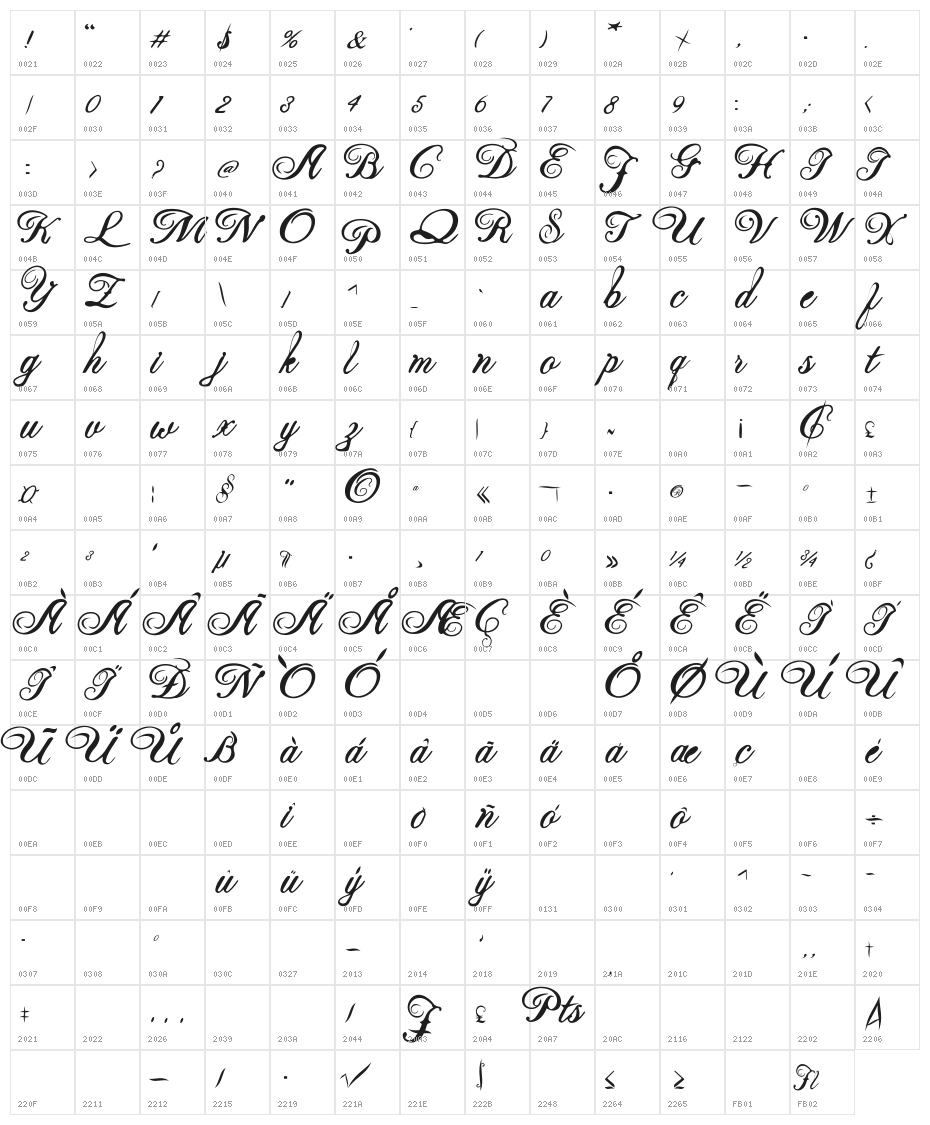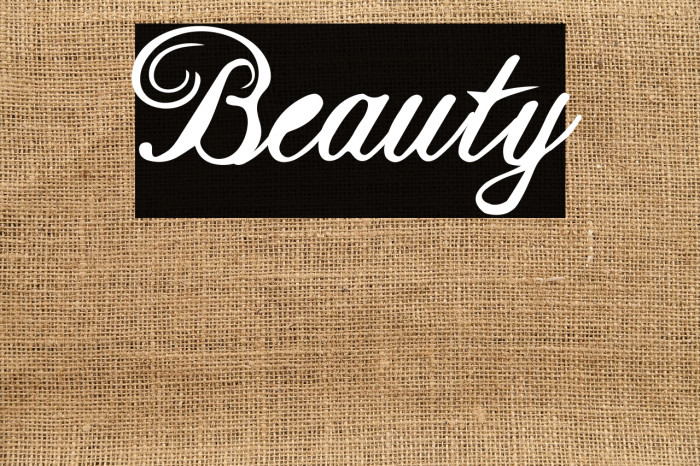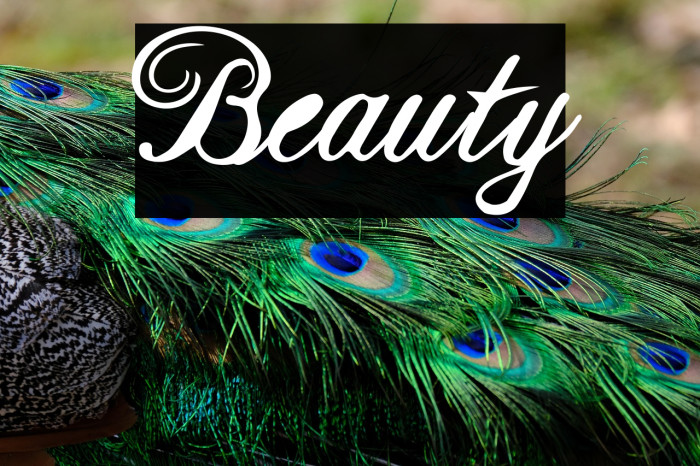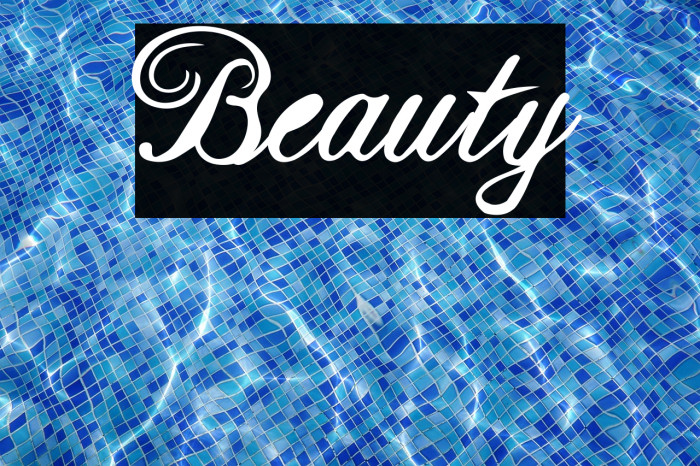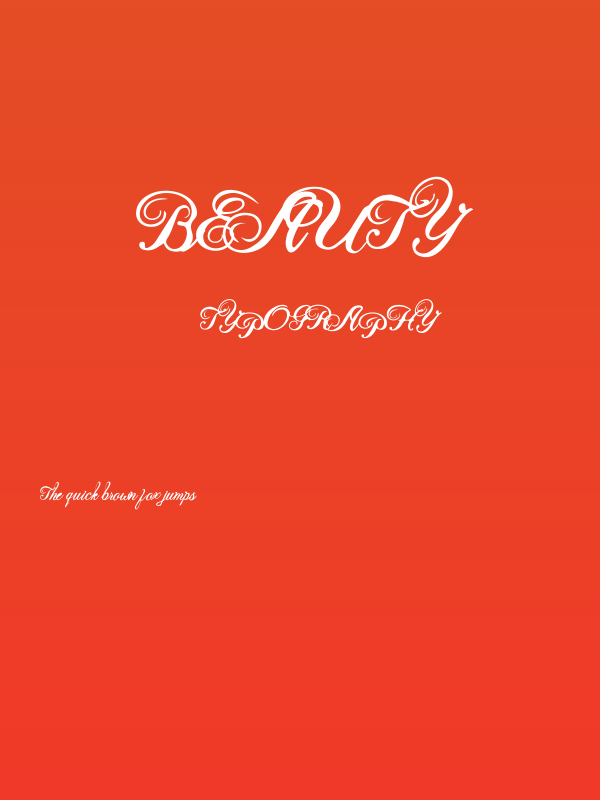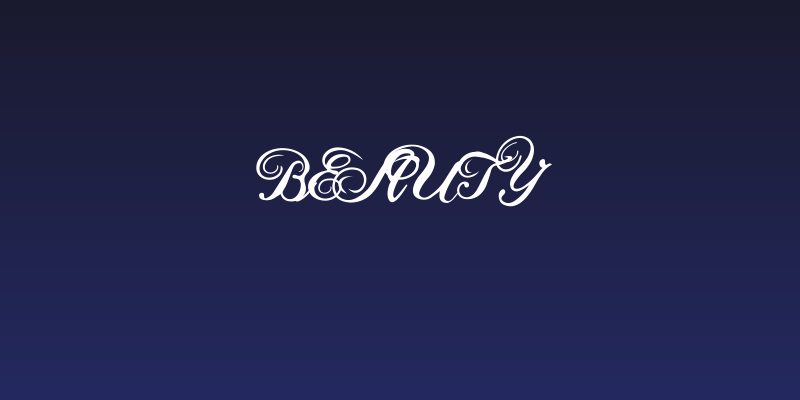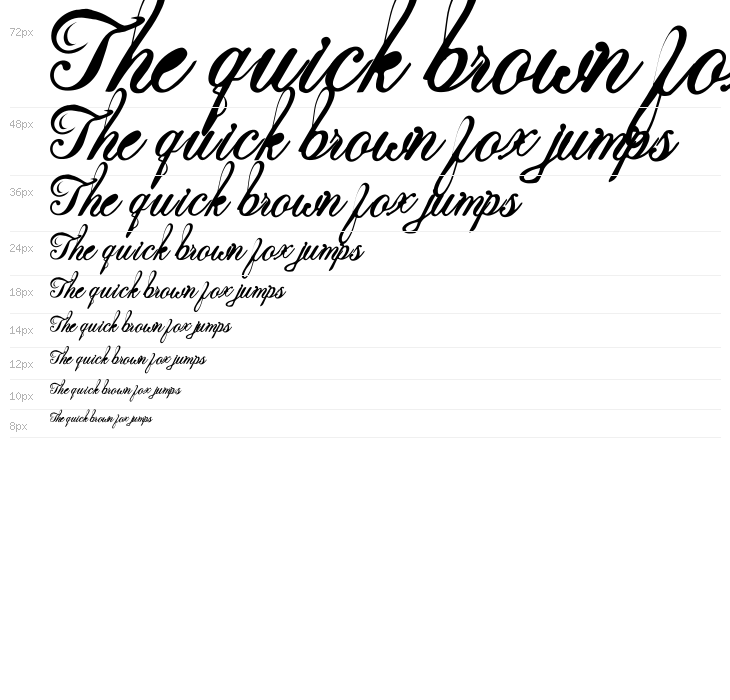
Beauty Font
Beauty Description
This elegant script font features a flowing, cursive style with intricate loops and flourishes. The uppercase letters are particularly ornate, with sweeping curves that give a sense of movement and grace. The lowercase letters maintain a consistent style, with smooth connections between each character, enhancing readability while preserving the decorative nature. Numbers and special characters are designed to match the overall aesthetic, ensuring a cohesive look across all text elements. This font exudes sophistication and is ideal for projects that require a touch of elegance and refinement.
| Overall Style | Elegant, Decorative |
| Use Case | Headlines, Invitations, Branding |
| Proposed Projects | Ideal for wedding invitations, elegant branding, luxury product packaging, and decorative headings. |